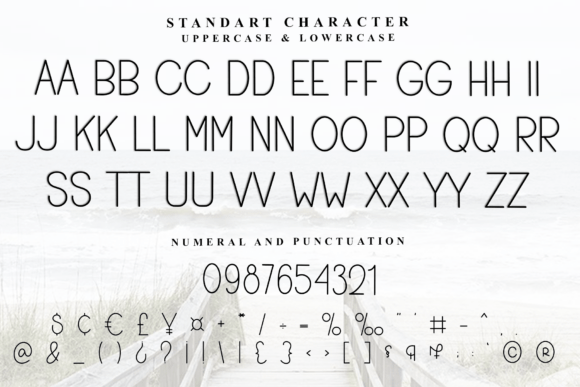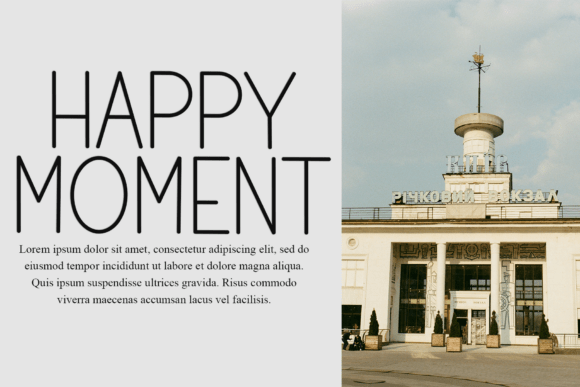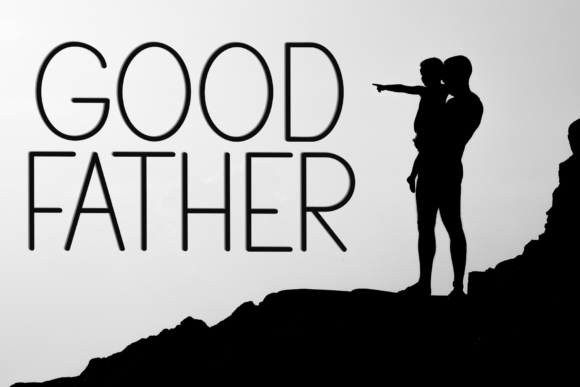
Introduction to Pencil Pouch Font
Pencil Pouch is a festive and merry typeface that captures the spirit of the holiday season.
Key Features of Pencil Pouch Font
Why Choose Pencil Pouch Font?
Pencil Pouch Font offers exceptional quality and versatility, making it a valuable addition to your design toolkit. Whether you’re creating for personal projects or commercial use, Pencil Pouch Font delivers professional results.